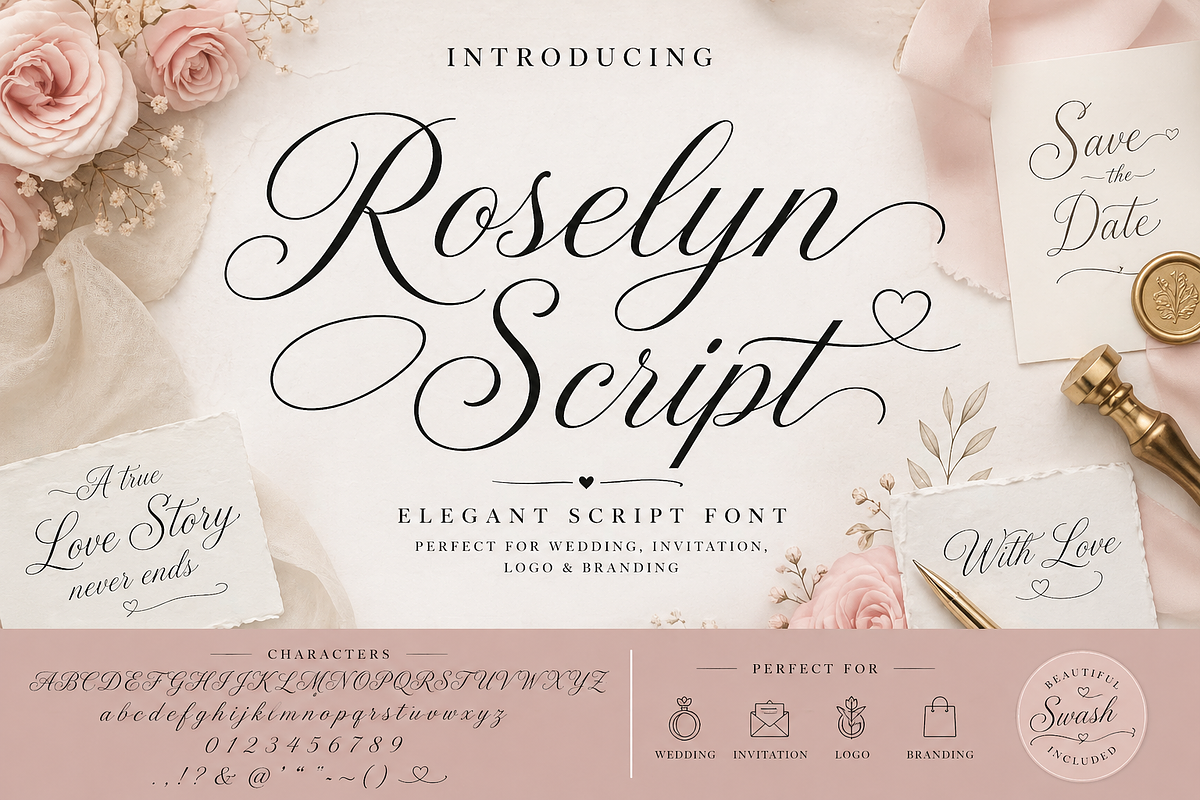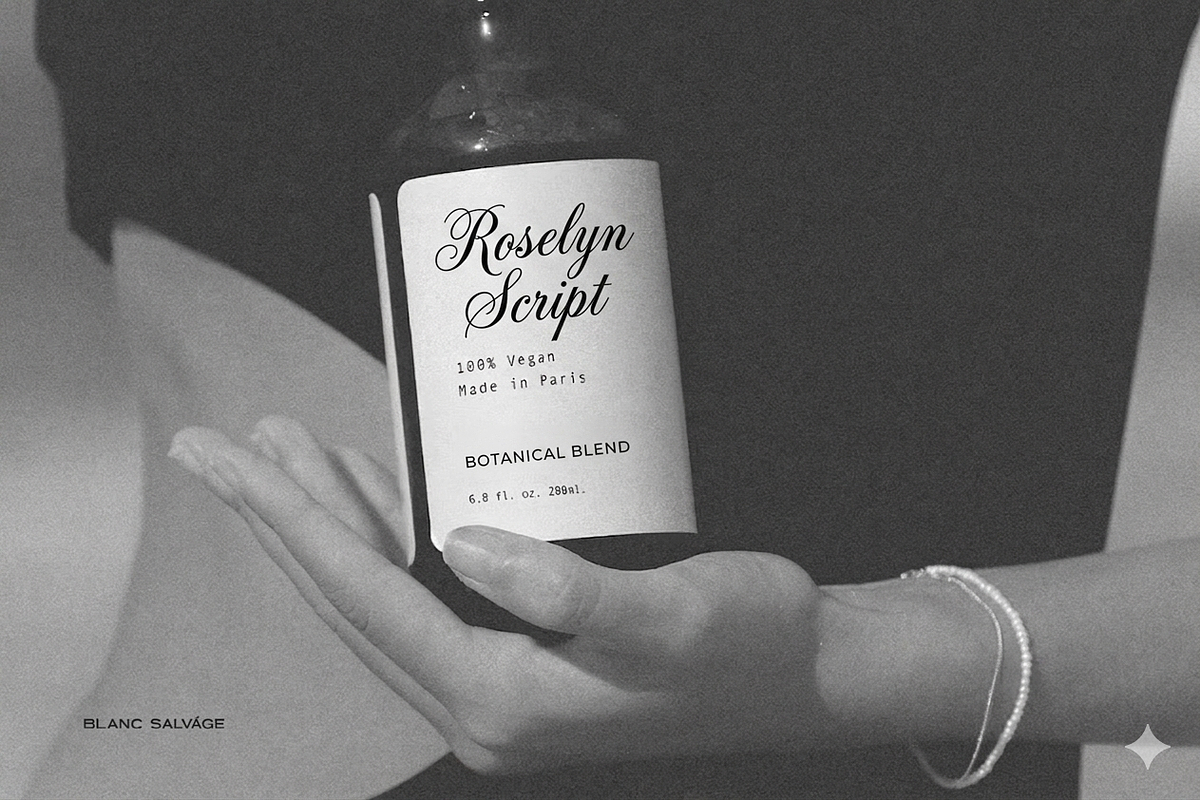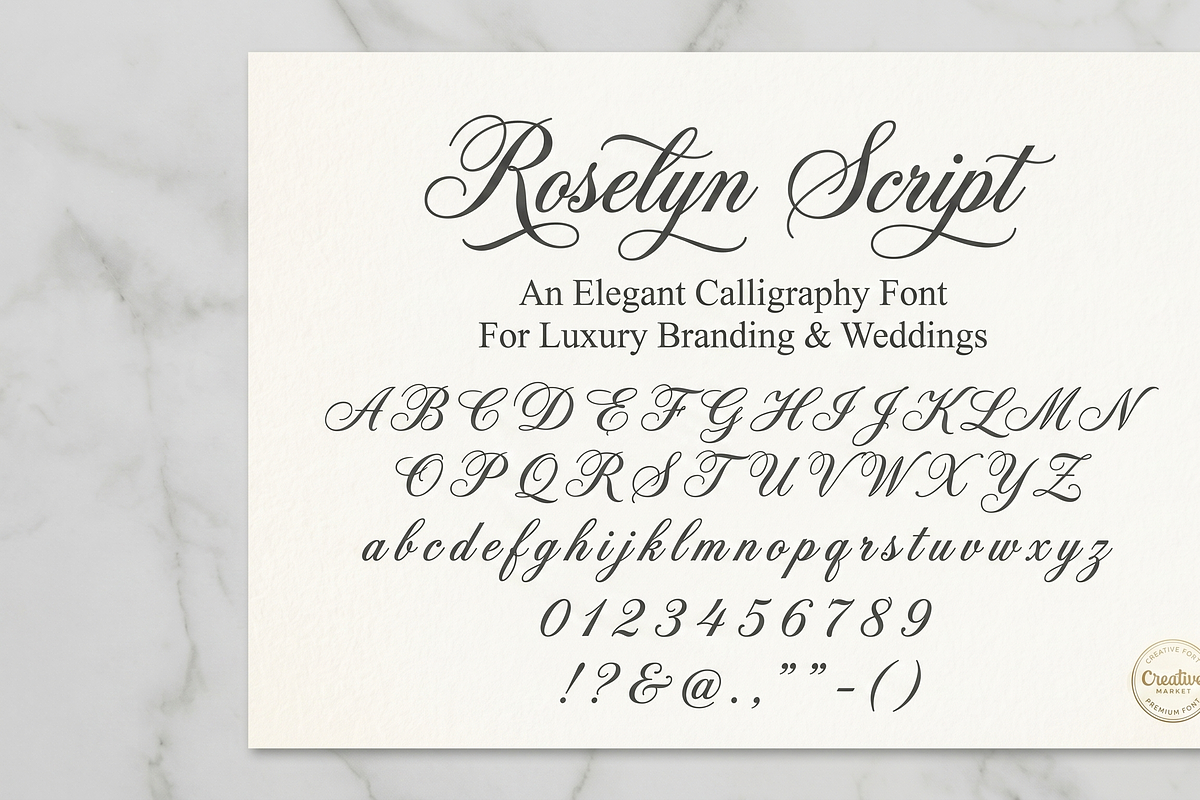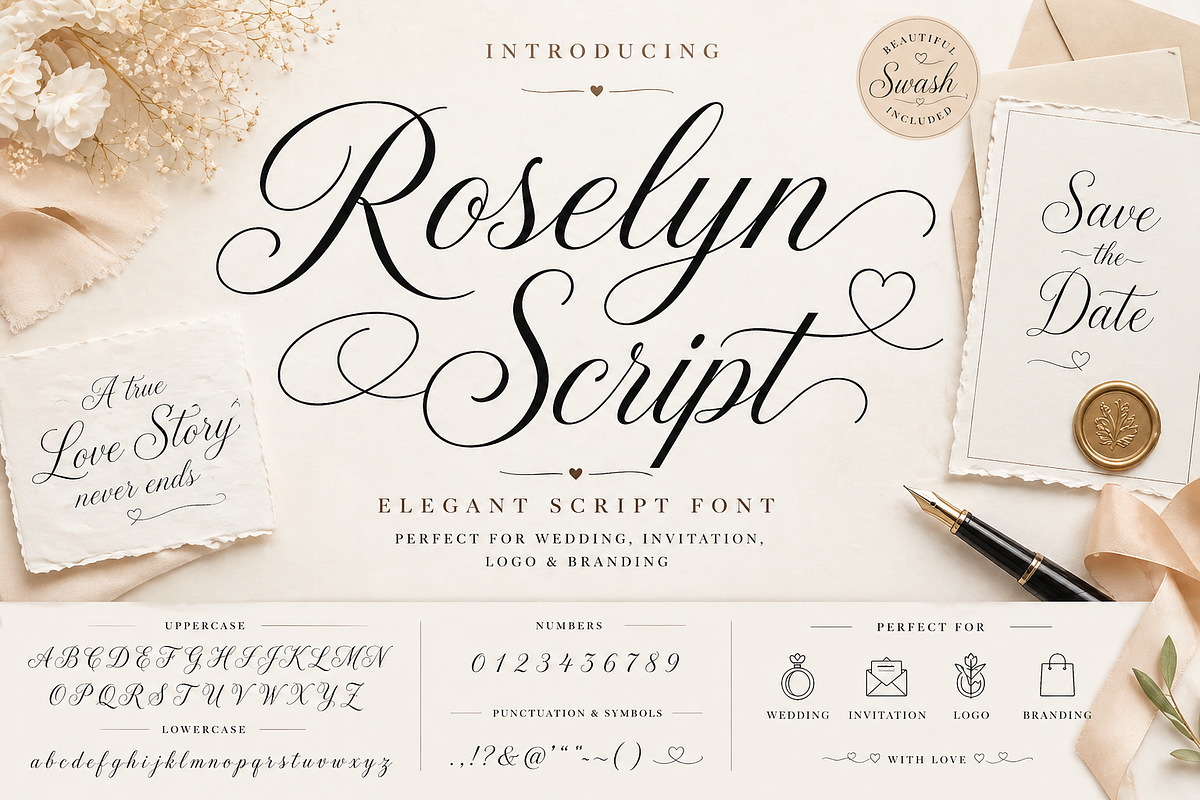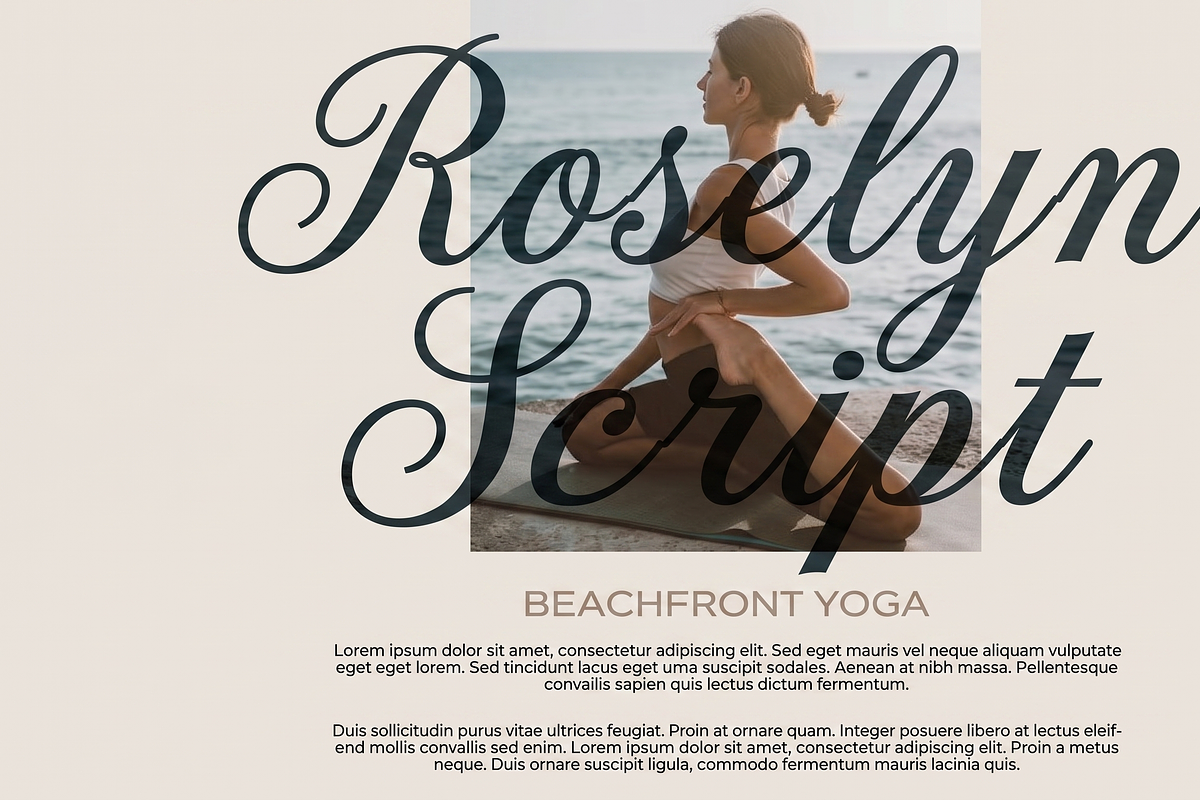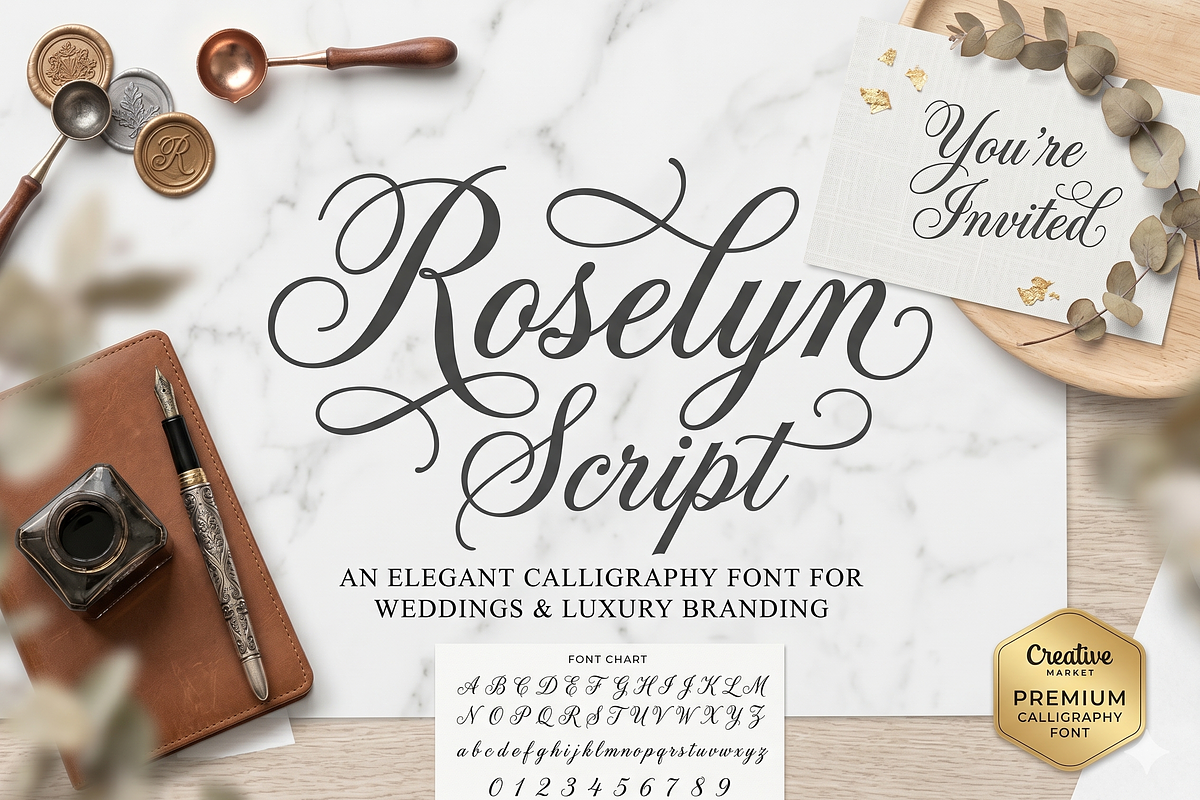
Roselyn Script Elegant Wedding font
Introducing Roselyn Script — a breathtakingly beautiful wedding calligraphy font designed for love stories, luxury invitations, and timeless romantic designs.
Roselyn Script features flowing cursive letterforms with graceful thick-to-thin stroke contrast, making it perfect for wedding stationery, bridal branding, greeting cards, and elegant packaging.
- Uppercase Letters (A–Z)
- Lowercase Letters (a–z)
- Numerals (0–9)
- Punctuation & Symbols
- 200+ Glyphs